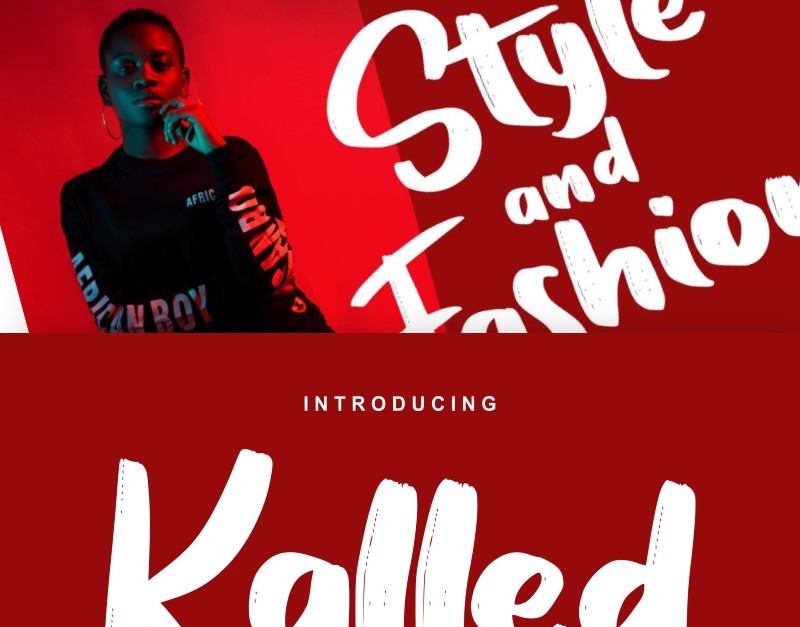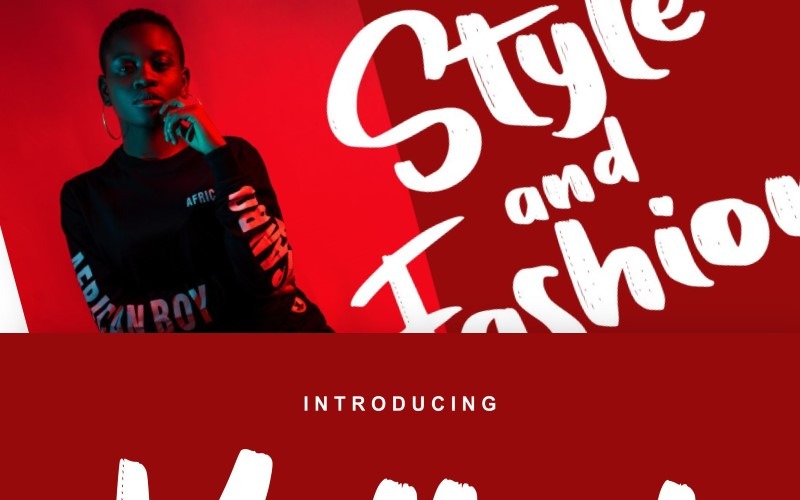
Kalled | Modern Typeface Cursive Font
**Kalled | Modern Typeface Script Font** with a calligraphy style, So beautiful on invitation like greeting cards, branding materials, business cards, quotes, posters, and more!